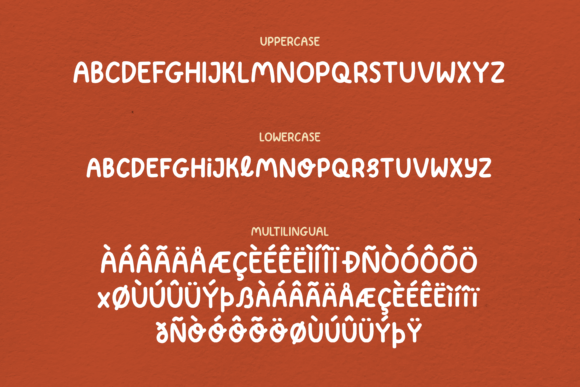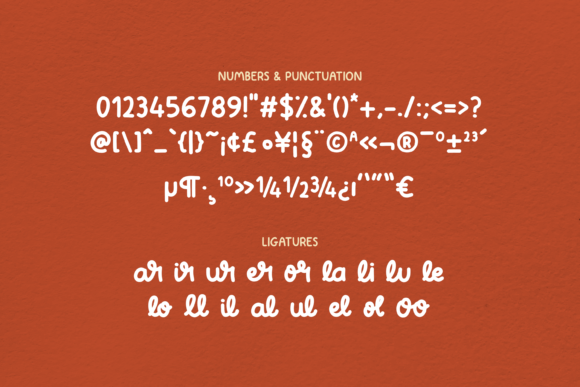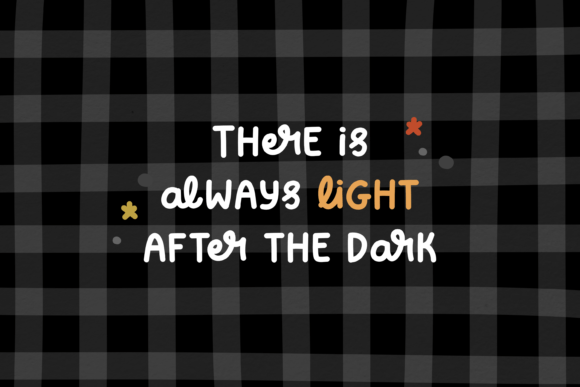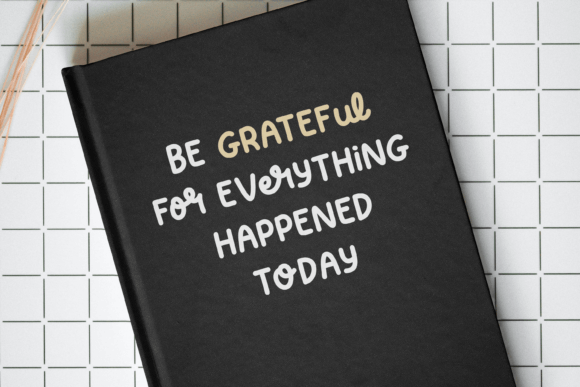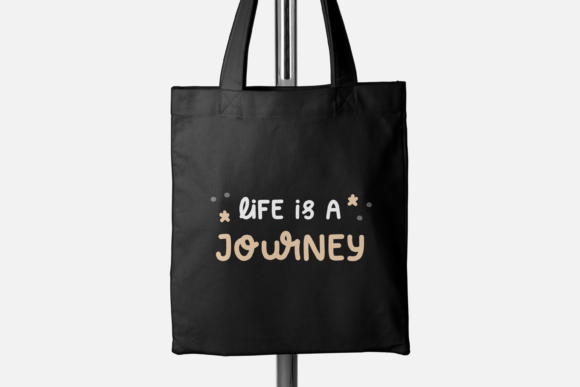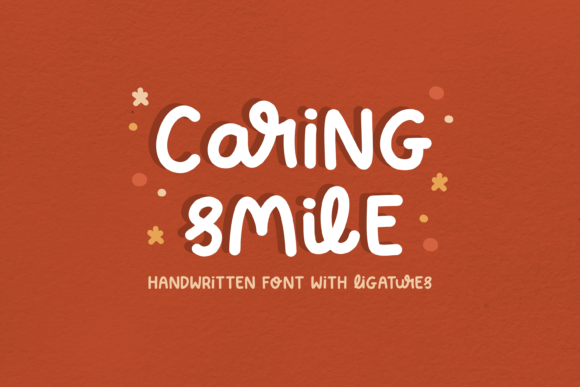
Caring Smile Font: Add a Touch of Whimsy to Your Designs
Are you looking for a font that can add a dash of cuteness and a touch of whimsy to your designs? Look no further than the Caring Smile font. This enchanting handwritten font is adorned with unique ligatures that bring a playful charm to every creation. In this article, we’ll dive into the features and benefits of the Caring Smile font and explore how it can elevate your designs.
What is Caring Smile Font?
Caring Smile is a beautifully crafted handwritten font that is perfect for designers and crafters who want to add a personal touch to their work. The font features unique ligatures that give it a playful and whimsical feel, making it ideal for a variety of design projects. Whether you’re creating vibrant posters, inspiring printed quotes, or captivating digital designs, the Caring Smile font is sure to impress.
Key Features of Caring Smile Font
- Handwritten style: The Caring Smile font has a beautiful handwritten style that gives it a personal and unique feel.
- Unique ligatures: The font features unique ligatures that add a touch of whimsy and playfulness to your designs.
- Cute and charming: The Caring Smile font is perfect for designers who want to add a dash of cuteness and charm to their work.
- Versatile: The font is suitable for a variety of design projects, including posters, quotes, digital designs, and more.
Benefits of Using Caring Smile Font
So, why should you choose the Caring Smile font for your designs? Here are just a few benefits of using this beautiful font:
- Adds a personal touch: The Caring Smile font adds a personal touch to your designs, making them stand out from the crowd.
- Creates a playful atmosphere: The font’s playful and whimsical feel creates a fun and playful atmosphere in your designs.
- Perfect for creative projects: The Caring Smile font is perfect for creative projects, such as posters, quotes, and digital designs.
- Easy to read: Despite its playful feel, the Caring Smile font is easy to read, making it perfect for designs that require a clear message.
How to Use Caring Smile Font in Your Designs
In conclusion, the Caring Smile font is a beautiful and versatile font that can add a touch of whimsy and playfulness to your designs. With its unique ligatures and handwritten style, it’s perfect for designers and crafters who want to create unique and eye-catching work. Whether you’re creating posters, quotes, digital designs, or more, the Caring Smile font is sure to impress.